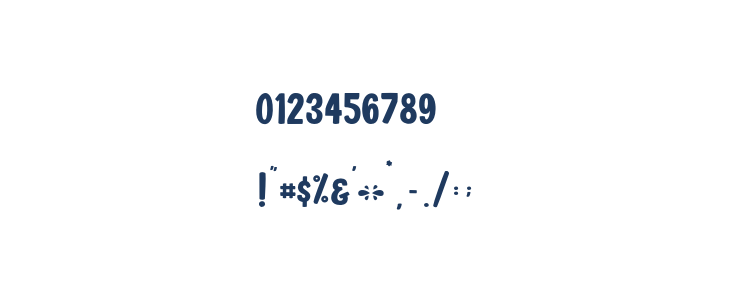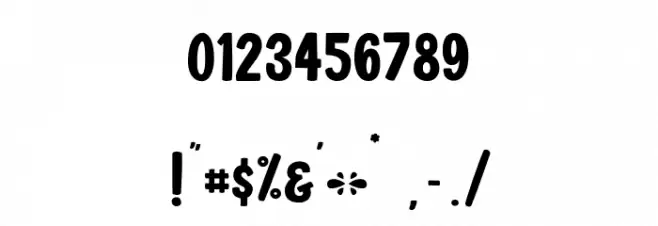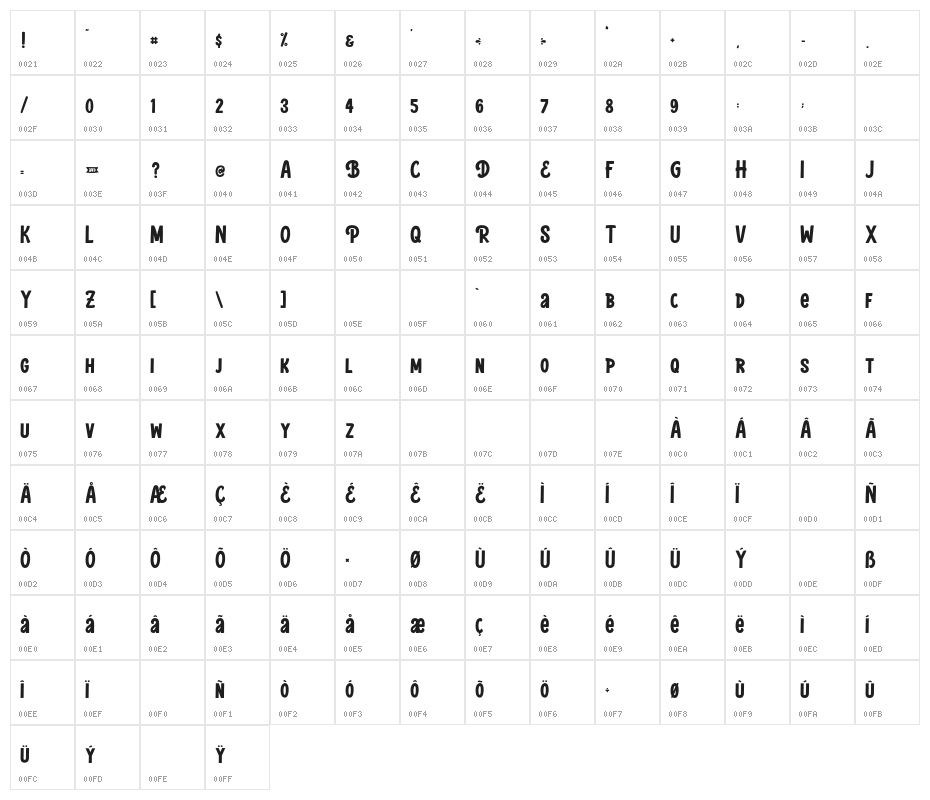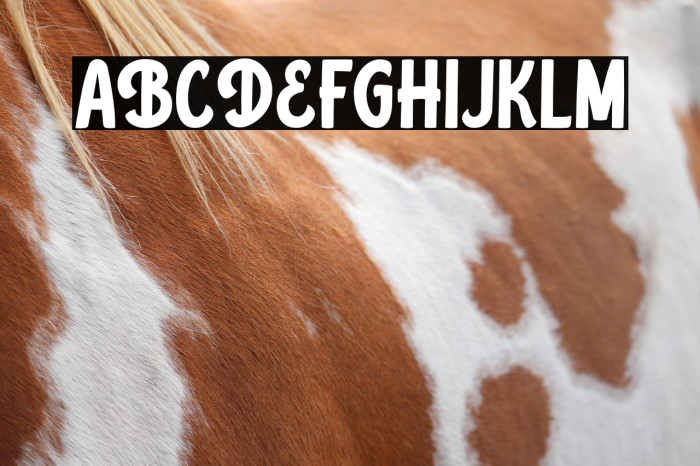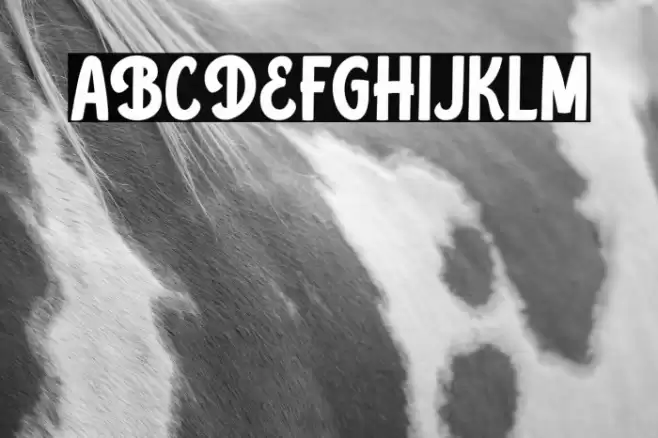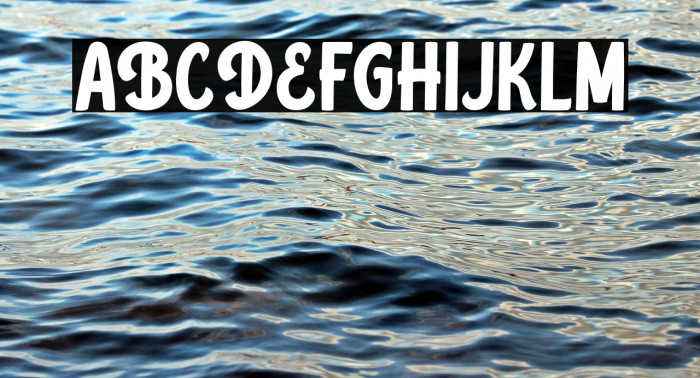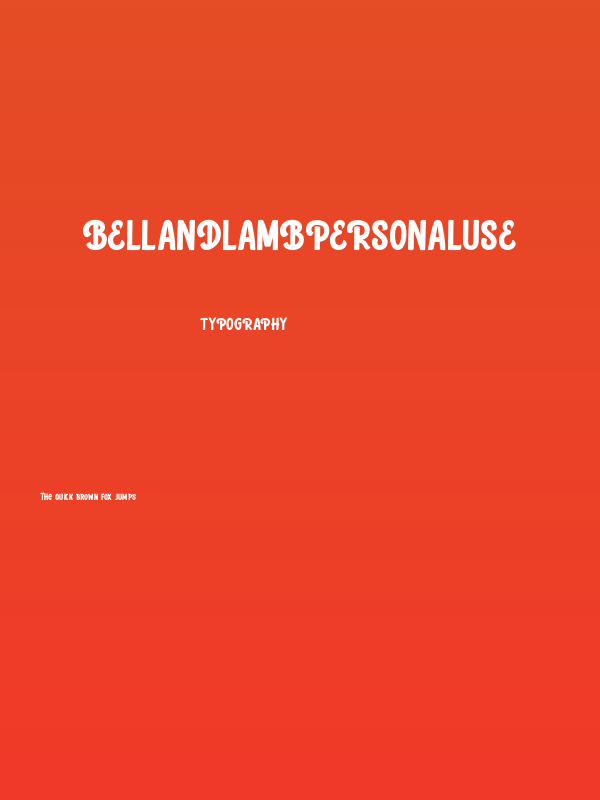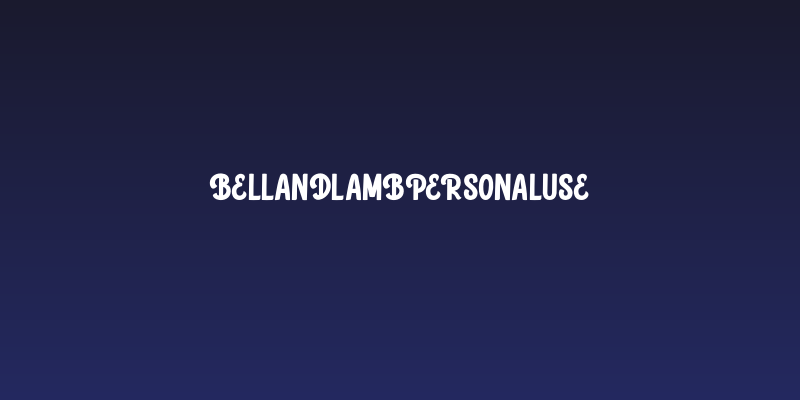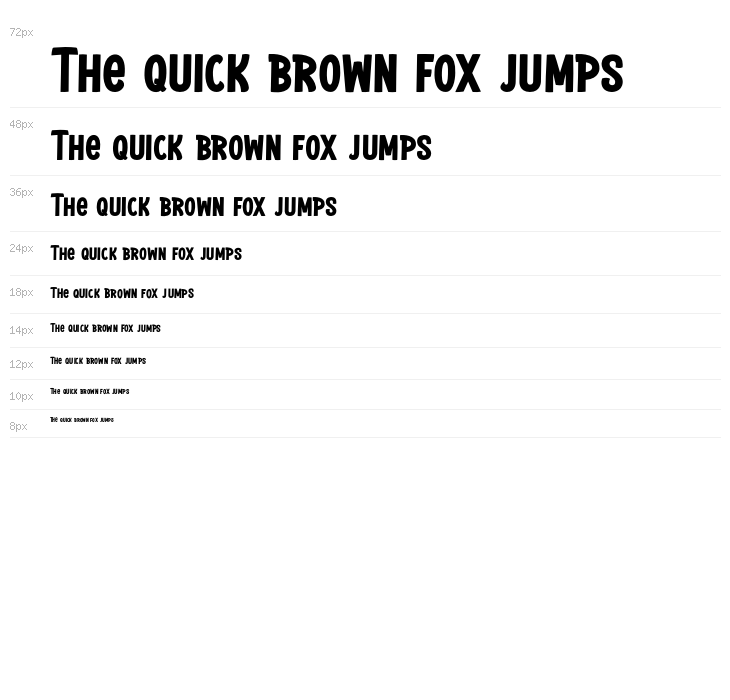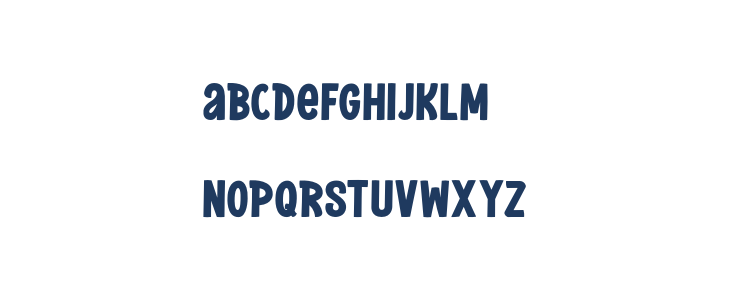
BellandLambPersonalUse Font
BellandLambPersonalUse Description
This font features a playful and bold style, characterized by its rounded and slightly irregular letterforms. The uppercase and lowercase letters maintain a consistent weight, providing a cohesive look across different text sizes. The numerals and special characters are designed to match the overall whimsical aesthetic, making them suitable for creative and informal applications. The font's unique charm lies in its ability to convey a sense of fun and approachability, making it ideal for projects that require a friendly and inviting tone.
| Proposed Projects | Ideal for children's books, playful branding, party invitations, and casual posters. |